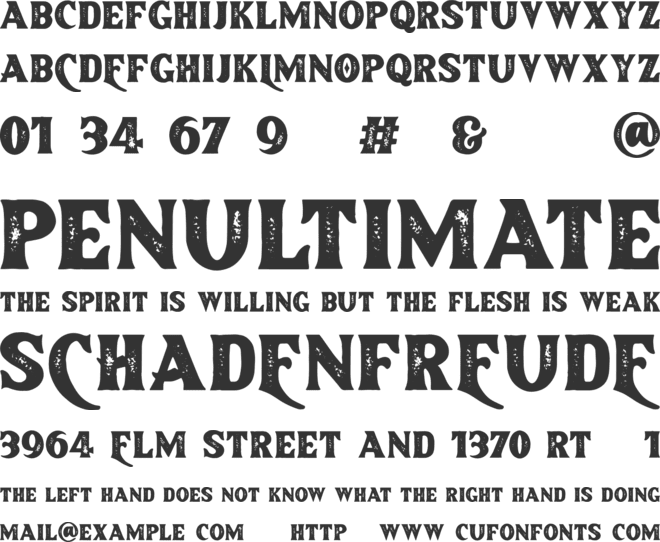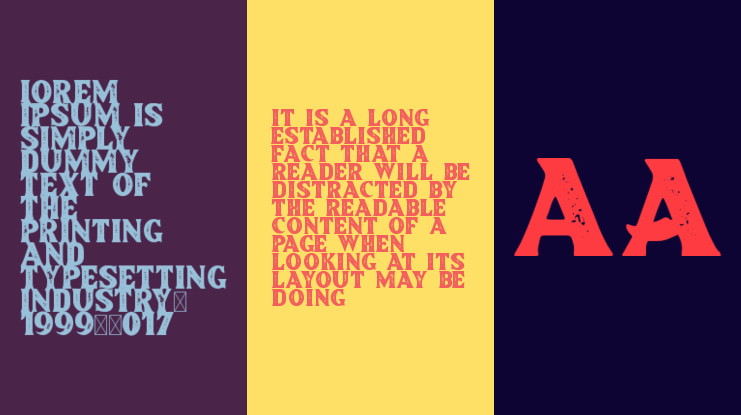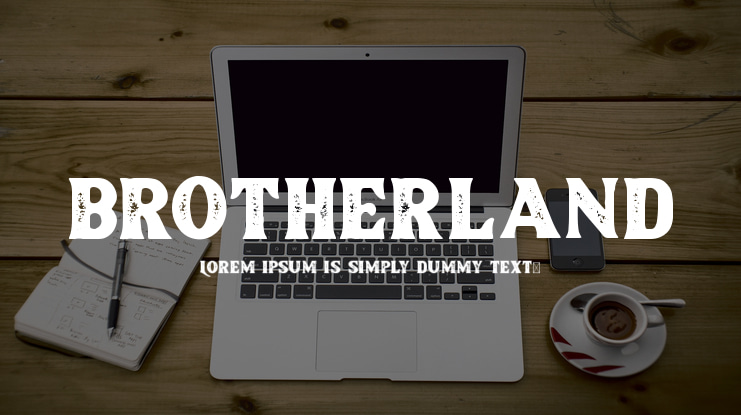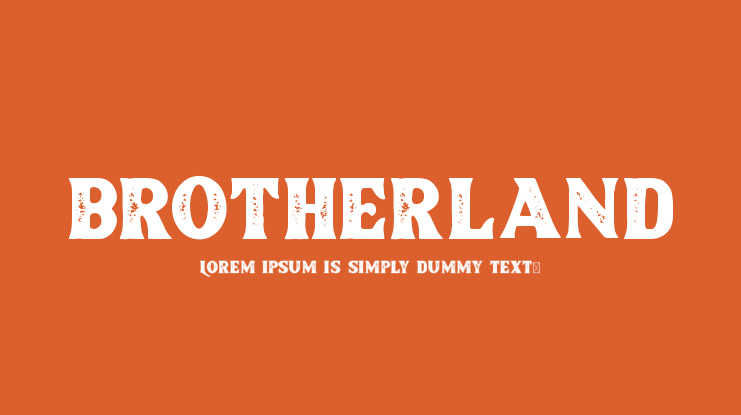
Brotherland Font
Brotherland is a Handdrawn serif typeface, they have rough and vintage character inspired from American Vintage typography. Brotherland comes with 4 styles regular, italic, Aged, Aged italic. Perfect for logos, badges, typography and any vintage design needs.